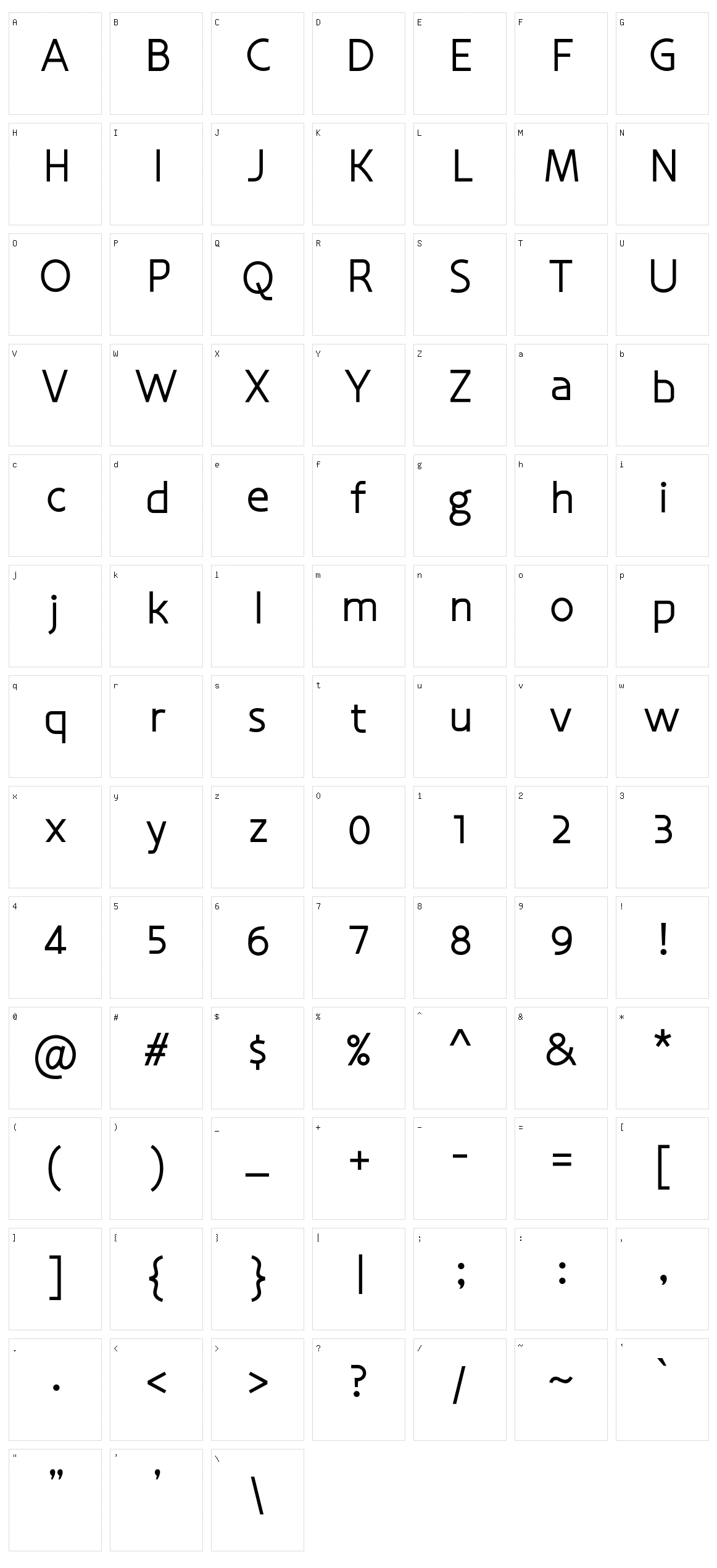
The free font Masone is carefully designed by Khurasan, showcasing a thoughtful balance of creativity and usability and falls under the Sans serif font style. When you download the ZIP file, it contains only 319.12 KB of font files, making it lightweight and quick to download. Please review the license details below to understand permitted usage and distribution rights. If license information is not available, we recommend using this font for personal projects only or contacting the author directly for commercial usage permissions.